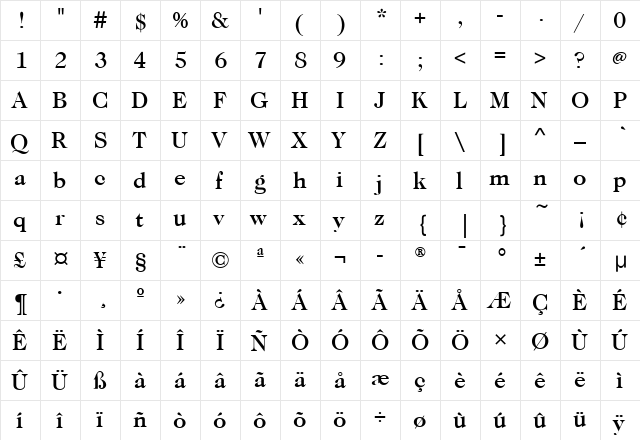
CaslonTwoTweFourMdITC Medium
Design Context for CaslonTwoTweFourMdITC Typeface
CaslonTwoTweFourMdITC offers clean, dependable letterforms without strong stylistic allegiance, making it a practical choice for designers who need flexibility.